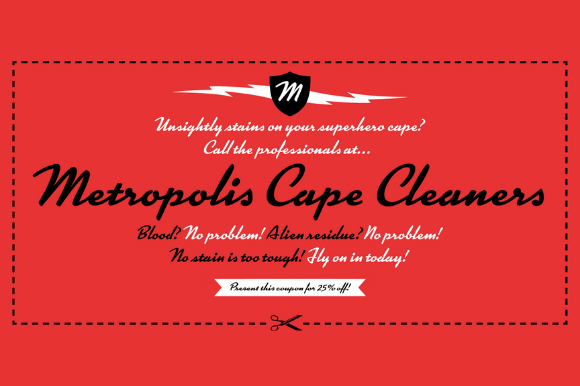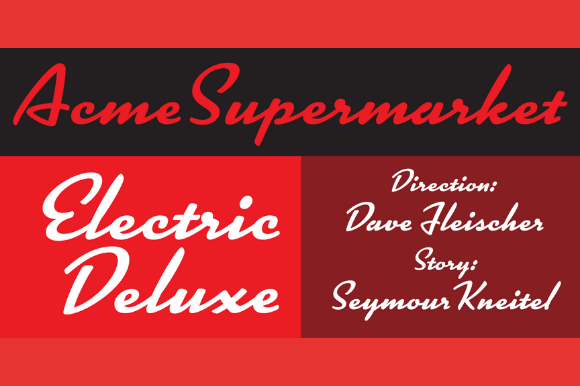
Kinescope Font
db-ku.com - Script & Handwritten -- Kinescope (2007) is a dashing 1940s-style brush script, inspired by hand-lettered titles in Fleischer Brothers’ Superman cartoon series. Although I used that as a starting point, there was much room for interpretation, and many characters had to be invented.